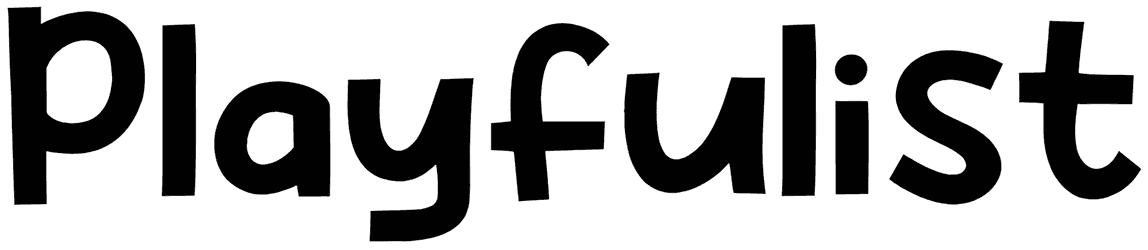
Playfulist Font
To inject some lightheartedness into your work, try using Playfulist, a fun and fanciful cartoon font. You can use this sticker font for anything from posters and invitations to kid-friendly novels, and it will look great every time.